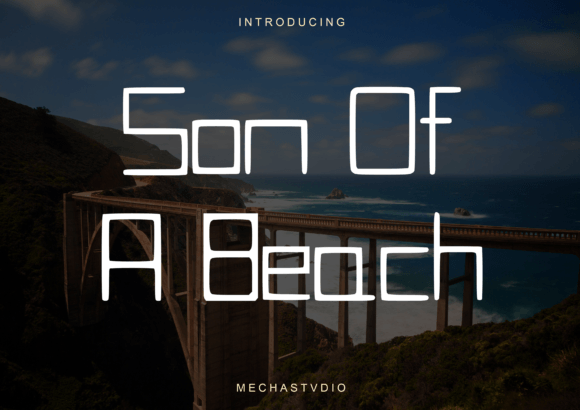
Introduction to Monterey Font
Monterey is a simple, modern, and basic display font.
Its unique style is perfect for all your projects as it has the potential to transform them into a true standout .
Key Features of Monterey Font